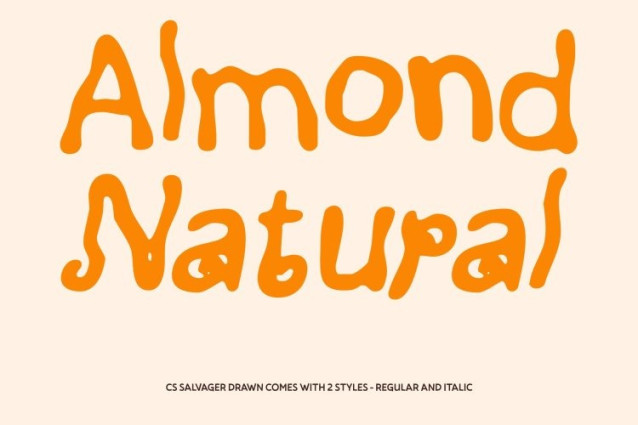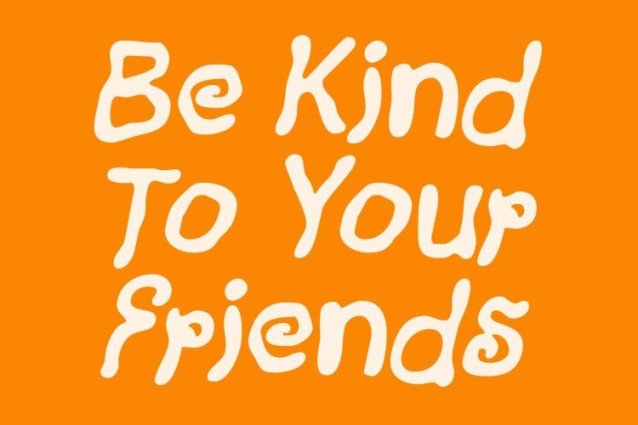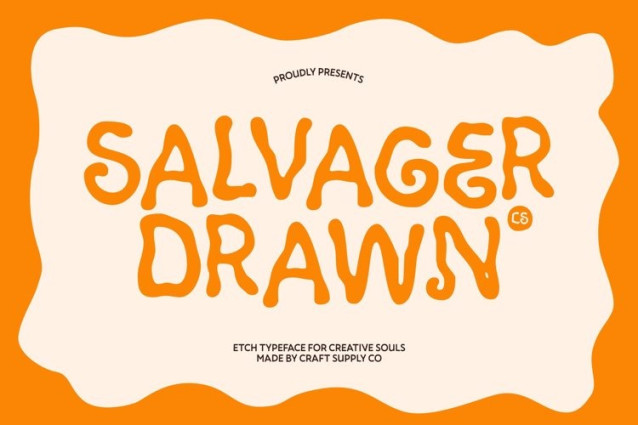
CS Salvager Drawn Font This is a display font that captures the magic of hand-drawn illustration with its etchy, textured strokes. Each letter feels carefully sketched by hand, embracing organic imperfection while radiating charm and creativity. This font brings warmth, authenticity, and a playful, handcrafted touch to every design.
Whimsical Lines That Spark Curiosity
With irregular, lively lines, creates visual rhythm and personality in every project. Each character’s quirky, flowing form feels alive, like it’s dancing across the page, inspiring wonder and curiosity. This whimsical quality is perfect for youth-focused designs or any project seeking heartfelt, imaginative expression.
Illustrative Personality with Typographic Function
This font balances decorative artistry with usability, making it ideal for storytelling and display purposes. Its hand-drawn texture adds depth, making each word feel alive and expressive while maintaining legibility. Designers can craft engaging titles, playful posters, and imaginative branding with ease.
Perfect for Enchanting and Creative Projects
This font is a versatile choice for posters, book covers, branding, or any design aiming to evoke wonder, originality, and handcrafted elegance. Its blend of etchy charm, whimsical energy, and illustrative personality ensures every project feels lively, unique, and visually captivating.